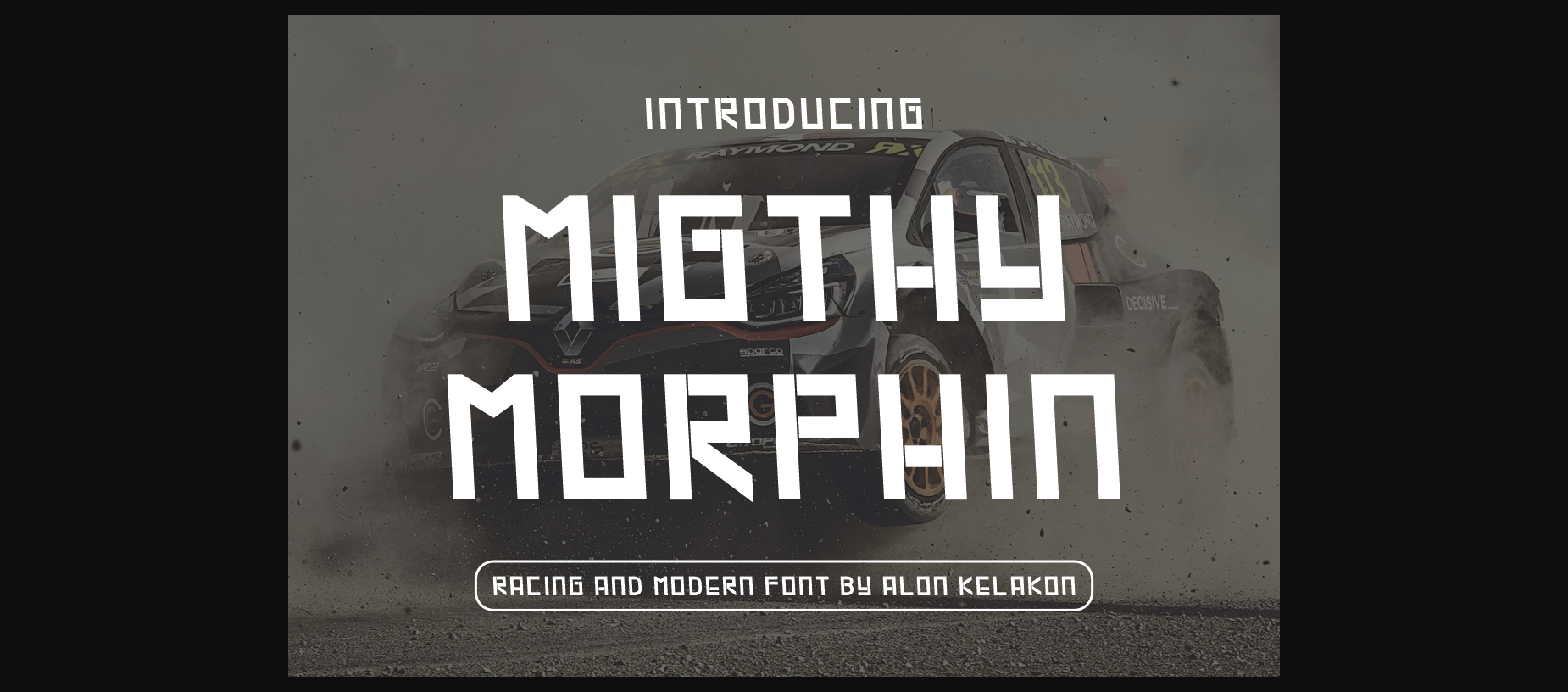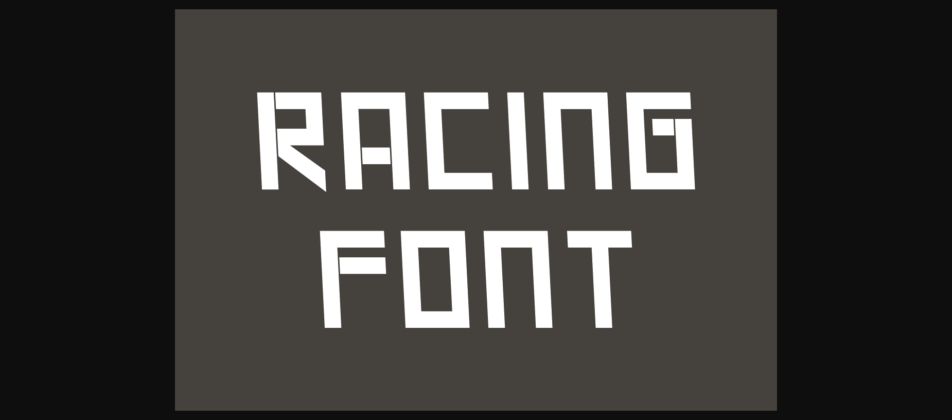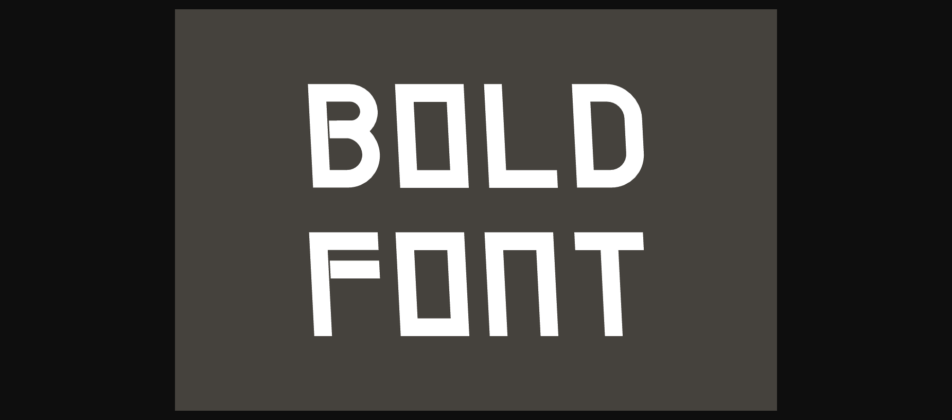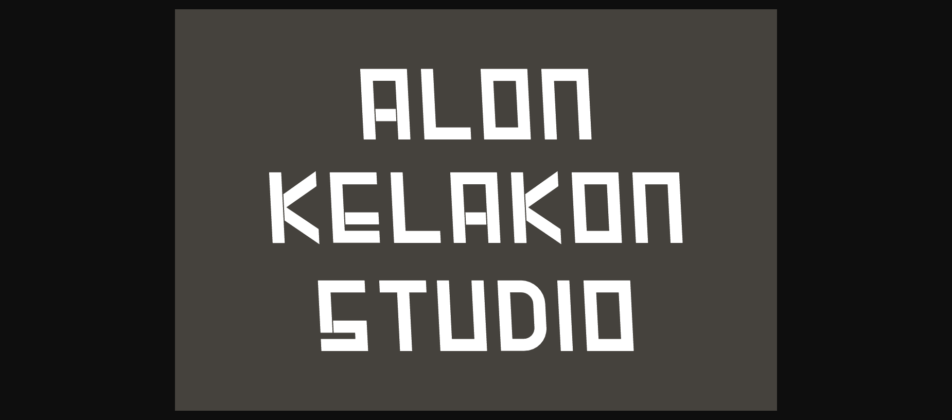
HomeSans Serif FontsMigthy Morphin Font Sans Serif Fonts Migthy Morphin Font FacebookXPinterestWhatsApp 1 of 8 ... Migthy Morphin Font Poster 2... Migthy Morphin Font Poster 3... Migthy Morphin Font Poster 4... Migthy Morphin Font Poster 5... Migthy Morphin Font Poster 6... Migthy Morphin Font Poster 7... Migthy Morphin Font Poster 8... About Migthy Morphin Font Migthy Morphin is a bold, all caps sans serif font featuring the perfect amount of trendiness. Whether you’re using it for crafting, digital designing, presentations or greeting cards making, it’s perfect! DOWNLOAD NOW People also explored Najwa Font Sandy Font Christmas Wish Font Djokovic Font Humerus Mens Leaf Bella Canvas 3001 Shirt Mockup Reveriesta Font Thursday Rise Font Nueva Font 391 0 TagsMigthy Morphin Font Previous articleGaming Technical FontNext articleQefaro Algefar Font LEAVE A REPLY Cancel reply Comment: Please enter your comment! Name:* Please enter your name here Email:* You have entered an incorrect email address! Please enter your email address here Website: Save my name, email, and website in this browser for the next time I comment. Personal Use Free Strings Personal Use Free Read more about this font Homelands Personal Use Free Read more about this font Gaboed Personal Use Free Read more about this font Special Day Personal Use Free Read more about this font BLOG Using Fonts in Digital Marketing: Tips to Strengthen Your Brand Identity In the realm of digital marketing, every visual element plays a crucial role in shaping a brand's identity, and fonts are no exception. The... How to Install and Use Fonts on Windows, macOS, and Web Projects Top 7 Google Fonts Alternatives for Faster and Privacy-Friendly Web Design (2025) Best Fonts for T-Shirt Design – Top 2025 Picks